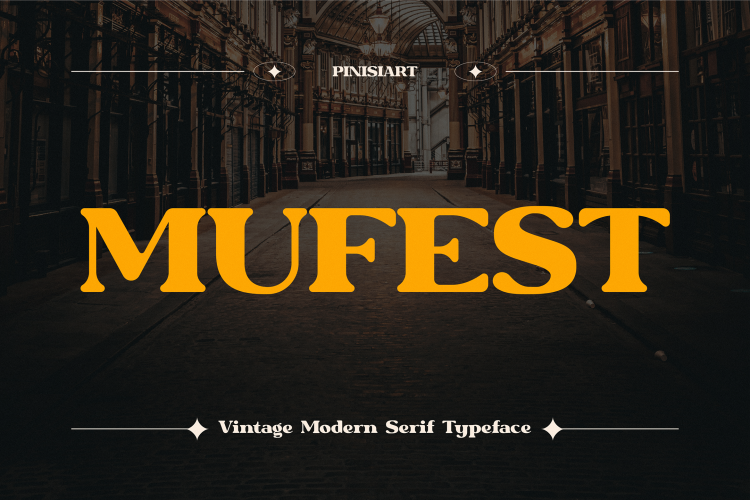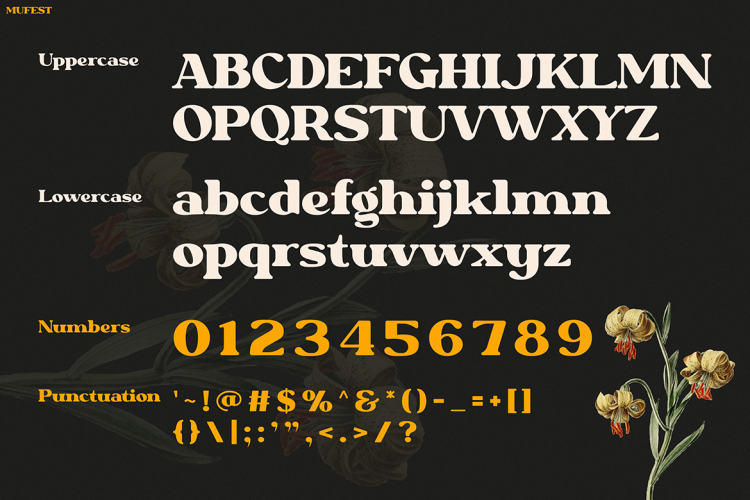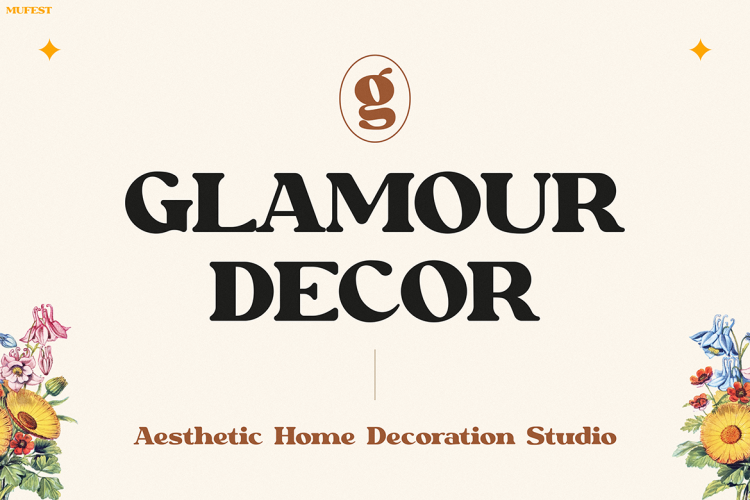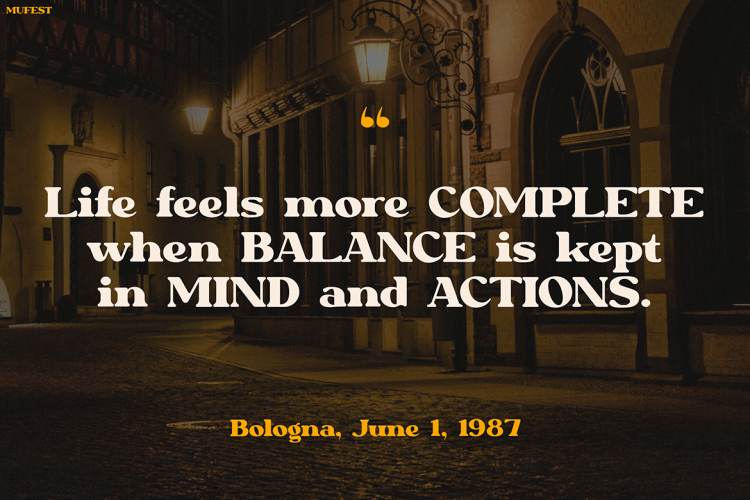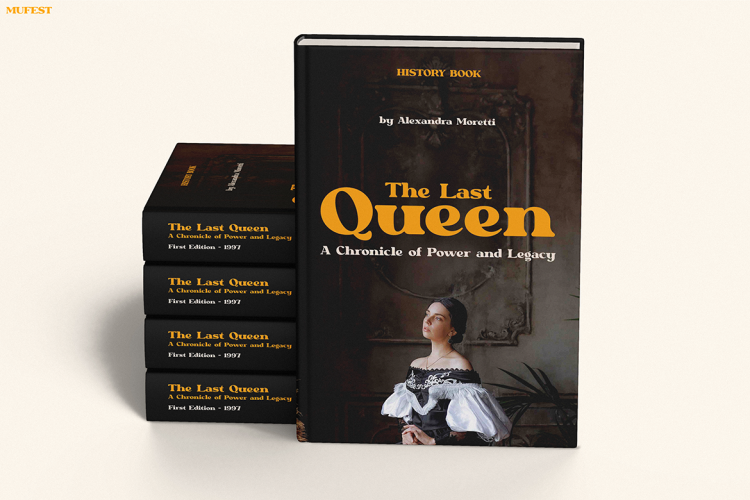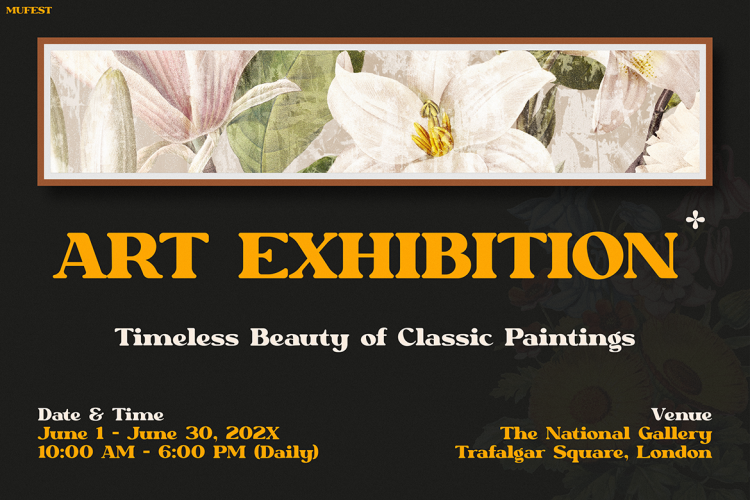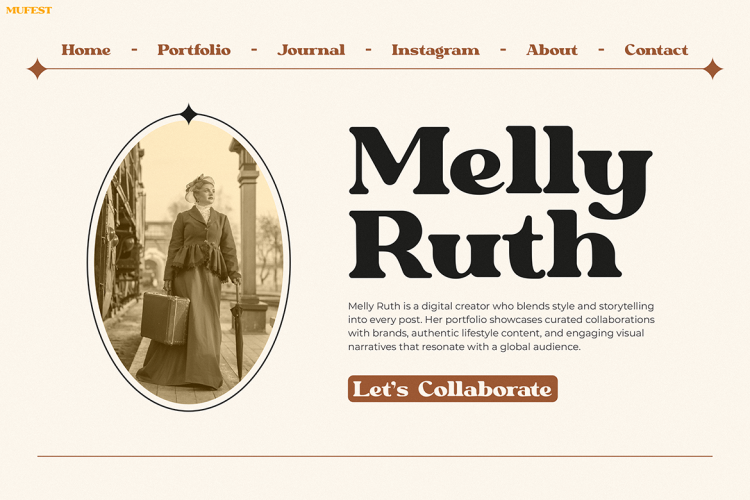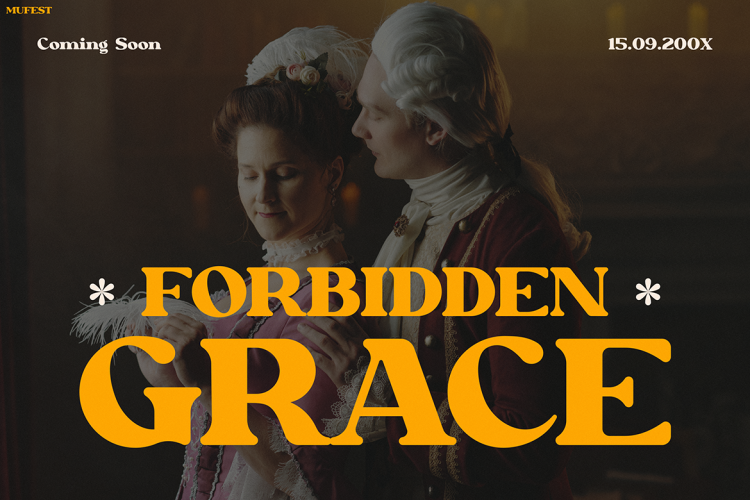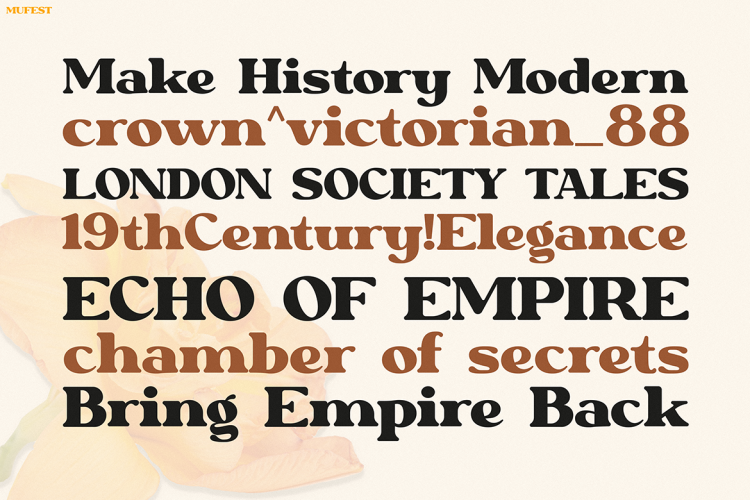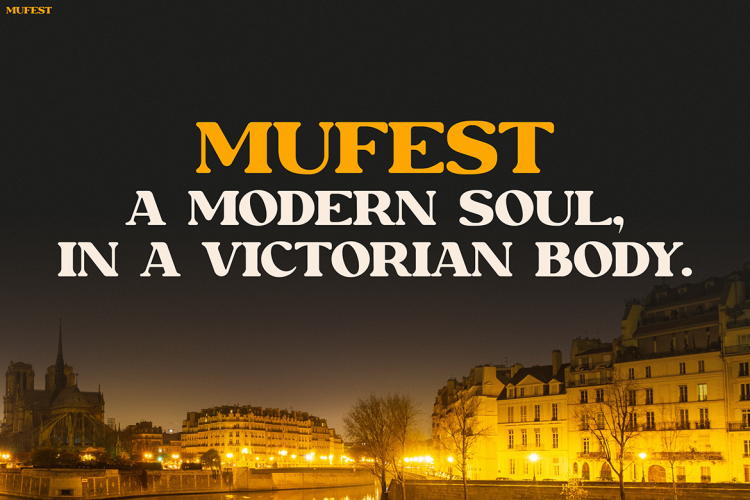
Retro Font MUFEST โ A Modern Soul in a Victorian Body
Retro Font MUFEST is a unique typeface that combines vintage elegance with modern creativity. Its bold serifs and refined curves instantly draw attention, while its balanced letterforms ensure easy readability. As a result, this font delivers both charm and function, making it a powerful choice for diverse design projects. Moreover, the mix of Victorian beauty and contemporary precision gives every word a stylish personality. With Retro Font MUFEST, your text will never look ordinary, because it was designed to bring character and impact to every layout.
Retro Font MUFEST Itโs Perfect For
Retro Font MUFEST is not only beautiful but also flexible. The uppercase letters create strength and authority, while the lowercase brings harmony and flow. Therefore, the font works equally well for short, bold headlines and longer text passages. In addition, the combination of classic structure and modern finish allows it to adapt to many creative fields.
This font is perfect for:
Designers & Creatives who want a typeface that instantly adds retro flair to posters, packaging, or digital content.
Business Owners who seek a logo or brand identity that feels elegant yet approachable.
Authors & Publishers aiming for book covers or magazines that stand out with timeless sophistication.
Marketers & Event Planners who need invitations, ads, or campaigns that capture attention at first glance.
Furthermore, MUFEST performs well across both print and digital platforms. On one hand, it looks striking in large display settings such as signage and posters. On the other hand, it remains elegant in smaller layouts like branding details or editorial work. Consequently, it becomes a versatile design companion that you can rely on for many styles and themes.
Closing Statement
In conclusion, Retro Font MUFEST is more than just another serif. It is a bridge between past and present, offering designs that are both nostalgic and relevant. If you want to give your words a bold, stylish, and timeless voice, this font is the right choice. Therefore, do not miss the chance to add MUFEST to your collection. It will transform your projects into designs that truly stand out.